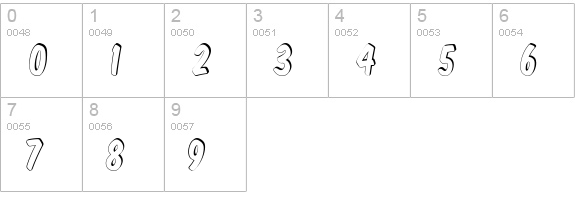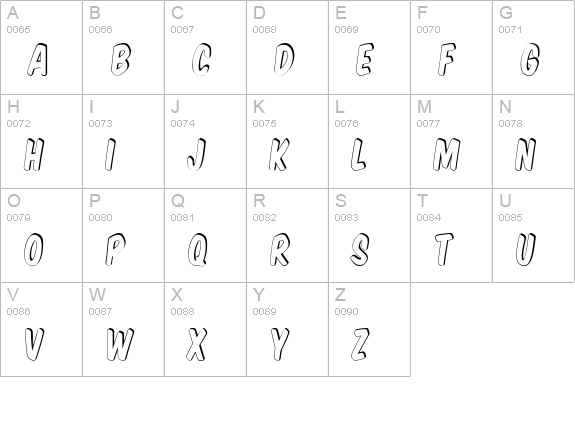
Komika Title - Shadow Font Details
Komika Title - Shadow font is a striking and captivating typeface that exudes a mysterious and edgy vibe. With its bold and dramatic shadow effect, this font is perfect for making a statement in headlines, posters, and logos. The unique design of Komika Title - Shadow font adds depth and dimension to any text, making it stand out from the crowd. Best of all, Komika Title - Shadow font is available for free download at FontsMarket.com. Whether you're a designer looking to add a touch of drama to your projects or a content creator in need of a bold and attention-grabbing font, Komika Title - Shadow is the perfect choice. Download it today and unleash the power of shadows in your designs!